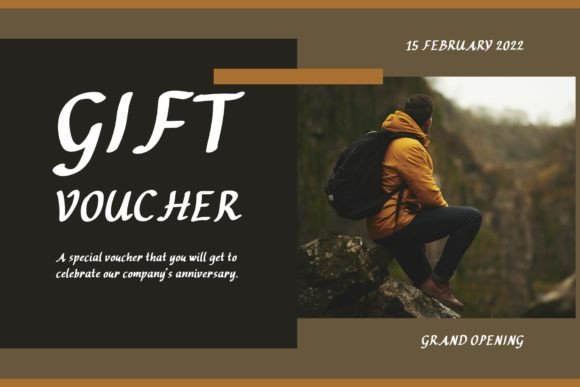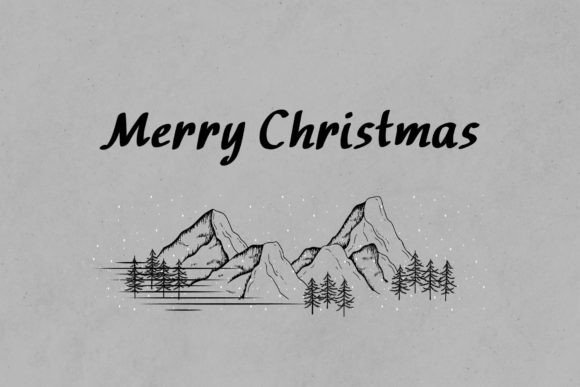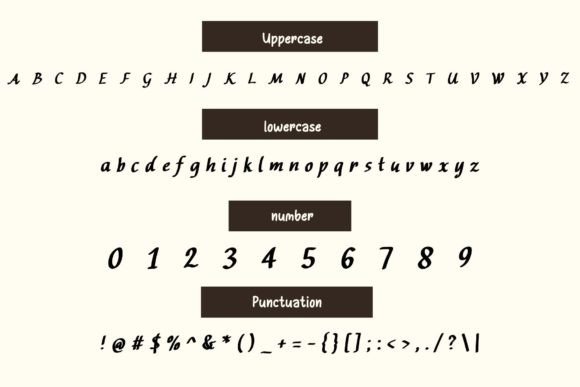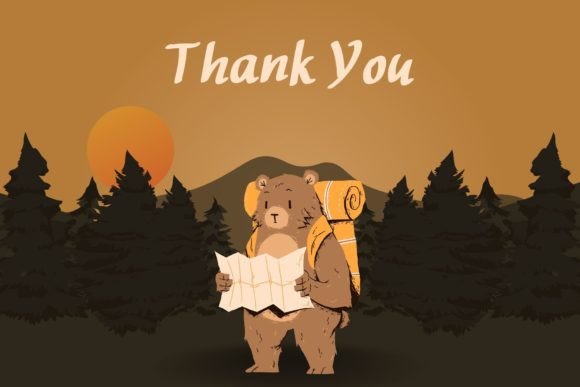
Camila Font: The Ultimate Handwritten Font for Creative Projects
Are you looking for a font that can add a touch of playfulness and authenticity to your designs? Look no further than Camila Font! This adorable handwritten font is perfect for a wide range of creative projects, from blog posts and logos to branding, ads, invitations, and more.
What is Camila Font?
Camila Font is a carefully crafted handwritten font that embodies a sense of playfulness and genuineness. Its unique and charming design makes it an excellent choice for designers and crafters who want to add a personal touch to their work. Whether you’re creating a blog post, logo, or social media graphic, Camila Font is sure to make your design stand out.
Key Features of Camila Font
- Playful and Authentic Design: Camila Font has a distinctive handwritten look that is both playful and authentic.
- Versatile: This font is perfect for a wide range of creative projects, including blog posts, logos, branding, ads, invitations, greeting cards, planners, photo albums, decorations, and more.
- Easily Readable: Despite its playful design, Camila Font is easy to read, making it perfect for body text and headings.
- High-Quality: Camila Font is a high-quality font that is designed to deliver exceptional results in any design.
Uses of Camila Font
Camila Font is an incredibly versatile font that can be used in a wide range of creative projects. Here are some ideas to get you started:
- Blog Posts: Add a personal touch to your blog posts with Camila Font. It’s perfect for headings, subheadings, and body text.
- Logos and Branding: Create a unique and memorable logo for your brand with Camila Font. Its playful design makes it perfect for businesses that want to stand out.
- Ads and Marketing Materials: Use Camila Font to create eye-catching ads and marketing materials that grab attention.
- Invitations and Greeting Cards: Add a personal touch to your invitations and greeting cards with Camila Font.
- Planners and Photo Albums: Use Camila Font to create beautiful planners and photo albums that are both functional and visually appealing.
- Decorations: Add a touch of personality to your decorations with Camila Font. It’s perfect for creating custom signs, banners, and more.
Why Choose Camila Font?
There are many fonts available, but Camila Font stands out from the rest. Here are some reasons why you should choose Camila Font for your next project:
- Unique Design: Camila Font has a unique and charming design that is sure to make your designs stand out.
- High-Quality: Camila Font is a high-quality font that is designed to deliver exceptional results in any design.
- Versatile: Camila Font can be used in a wide range of creative projects, making it a great addition to any design library.
Camila Font is a beautiful handwritten font that is perfect for designers and crafters who want to add a touch of playfulness and authenticity to their designs. Its unique design, versatility, and high-quality make it an excellent choice for a wide range of creative projects. Whether you’re creating a blog post, logo, or social media graphic, Camila Font is sure to deliver exceptional results. So why wait? Add Camila Font to your design library today and start creating stunning designs that stand out!